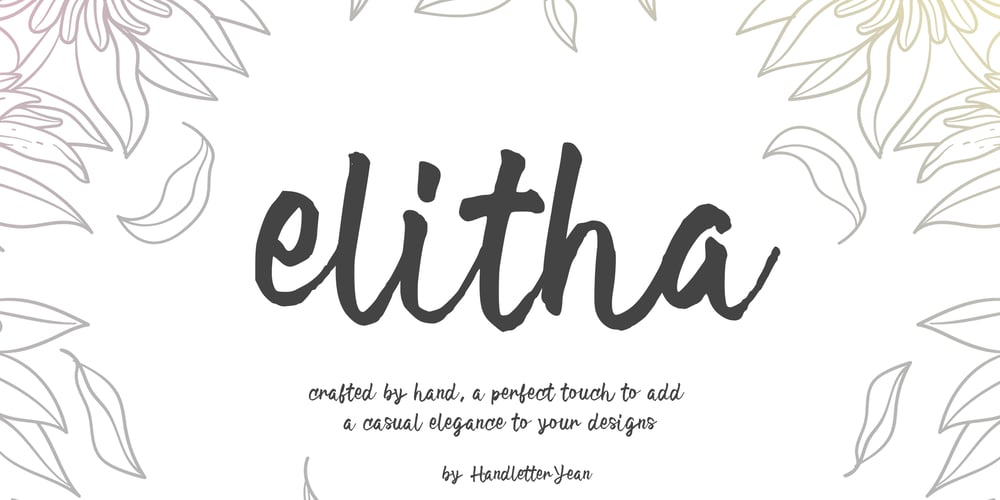
Elitha
Elitha font
Elitha Font Family was designed by Yean Aguste and published by HandletterYean. Elitha contains 1 styles and family package options. Experience the artisanal allure of Elitha font – meticulously hand-drawn to infuse your designs with a unique blend of sophistication and charm. Whether you’re crafting invitations, posters, or any design masterpiece, Elitha’s effortless style adds a touch of casual elegance to every project. Embrace the beauty of handmade artistry and elevate your designs with Elitha font today!